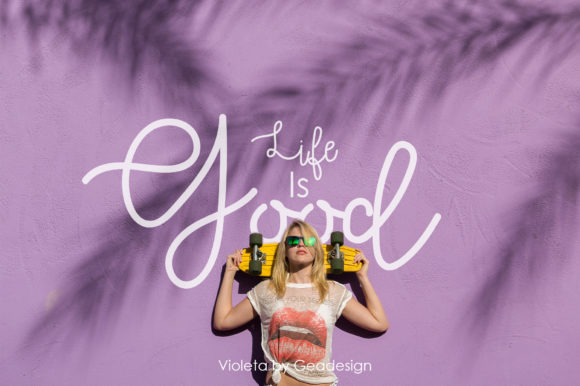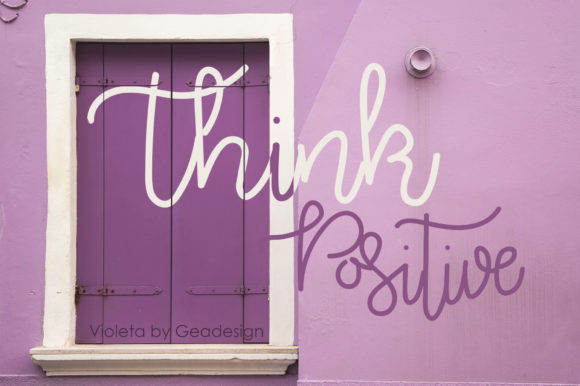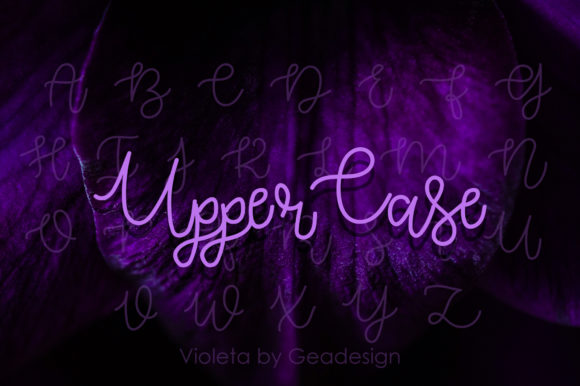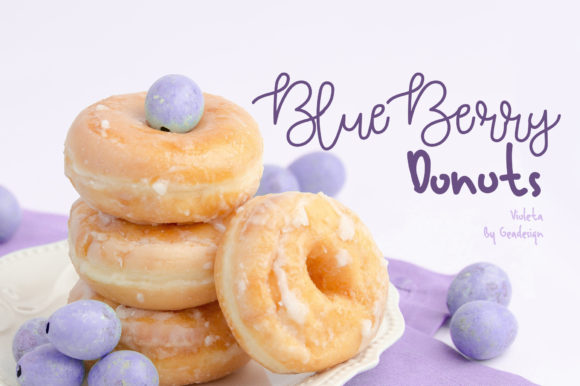
HomeScript FontsVioleta Font Script Fonts Violeta Font FacebookXPinterestWhatsApp Violeta Font Poster 2 Violeta Font Poster 3 Violeta Font Poster 4 Violeta Font Poster 5 About Violeta Font Violeta is a unique script with a romantic, sweet and fresh look. Fall in love with its delicate charm. DOWNLOAD ON CREATIVE FABRICAThis font is sold and delivered by Creative Fabrica. Font Canyon may earn a commission if you buy through this link. People also explored Mochigan Font Mondaylika Font Pinky Plastic Beauty Light Font Mathilda Font Aliveness Font Amarise Font Mighty Font Deobird Font 309 0 TagsVioleta Font Previous articleAmorisa FontNext articleAmberla Duo Font LEAVE A REPLY Cancel reply Comment: Please enter your comment! Name:* Please enter your name here Email:* You have entered an incorrect email address! Please enter your email address here Website: Save my name, email, and website in this browser for the next time I comment. Personal Use Free Merak Personal Use Free Read more about this font Lightning Script Personal Use Free Read more about this font Green Fuz Personal Use Free Read more about this font Fifteenth Century Personal Use Free Read more about this font BLOG Free vs Paid Fonts: Why Investing in Premium Fonts Is Worth It Free vs Paid Fonts: Why Premium Fonts Are Worth It in 2025 The debate of free vs paid fonts continues in the design world. While... Elegant Wedding Invitation Fonts – Handwritten & Script Fonts Top 7 Google Fonts Alternatives for Faster and Privacy-Friendly Web Design (2025) Modern Sans-Serif Fonts That Brands Love in 2025